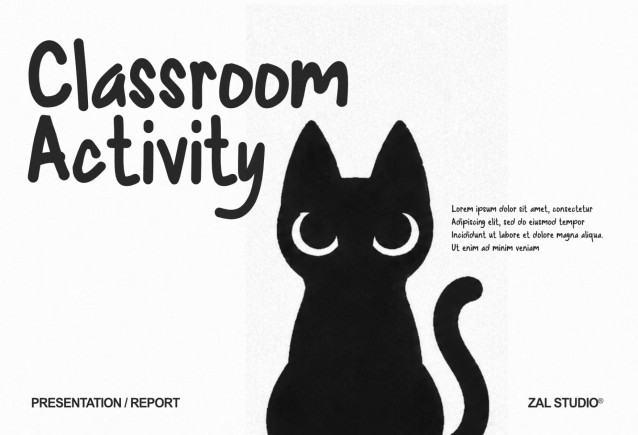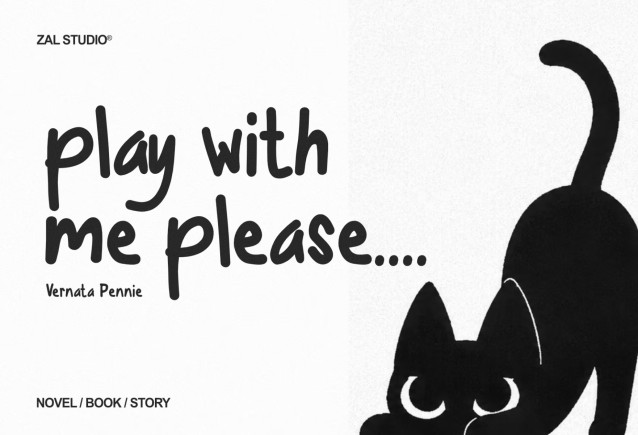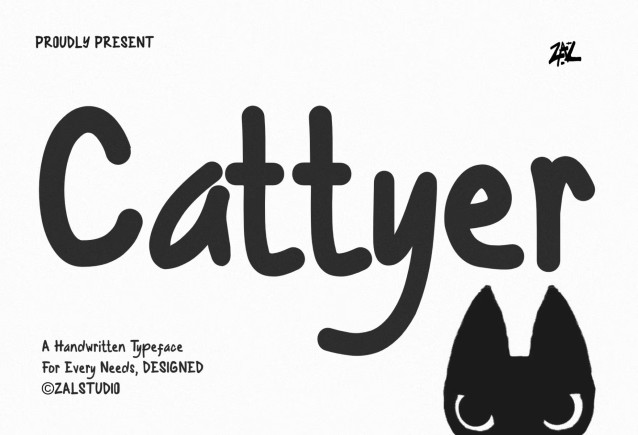
Cattyer -Display Handwritten Typeface
Cattyer is a playful, rounded handwritten display font with a soft, casual personality. Its friendly, organic strokes mimic the natural flow of a felt-tip marker, featuring rounded terminals and a bouncy, informal baseline that gives the letterforms an approachable and warm character.
Best suited for kids’ book covers, classroom materials, playful packaging, pet shop branding, casual social posts, and event posters. Its soft, friendly structure works exceptionally well for headlines and display text where a gentle, handmade touch is needed.
Cattyer features a display style with a distinctive character that works beautifully for headlines, branding, posters, logos, packaging, editorial designs, social media graphics, and advertising. Its attention-grabbing appearance makes it an excellent choice whenever your design needs a strong visual presence.
Whether you’re creating a modern brand identity, a striking poster, a fashion campaign, a product label, or social media content, Cattyer is built to stand out.
Perfect For
- Logo & Brand Identity
- Typography & Wordmarks
- Posters & Flyers
- Packaging Design
- Editorial Design
- Magazine Headlines
- Advertising & Campaigns
- Social Media Graphics
- T-Shirt & Apparel Design
- Product Labels
- Album & Cover Artwork
- Website Headlines
- Creative Merchandise
- Display Typography
Font Highlights
- Handwritten display typeface
- Strong and distinctive letterforms
- Eye-catching headline style
- Great for branding and advertising
- Suitable for print and digital design
- Versatile for both personal and commercial projects
- Designed for large typography and impactful compositions